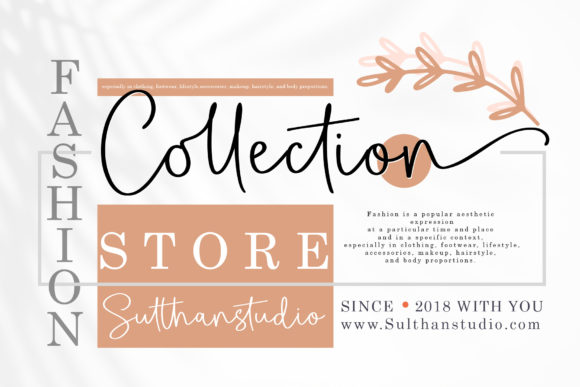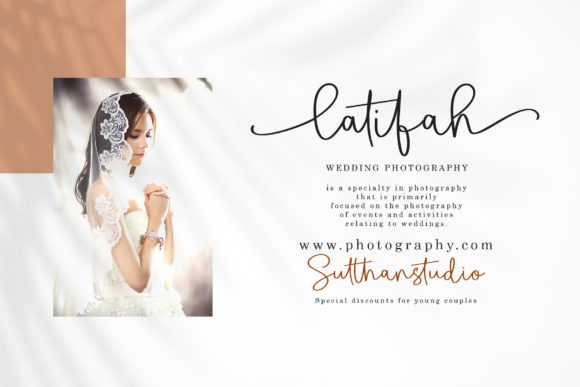
Bright Star Font
Bright Star is a sweet and cursive handwritten font. This gentle font will look gorgeous on a variety of design ideas. It will add a joyful and romantic touch to each of your projects!